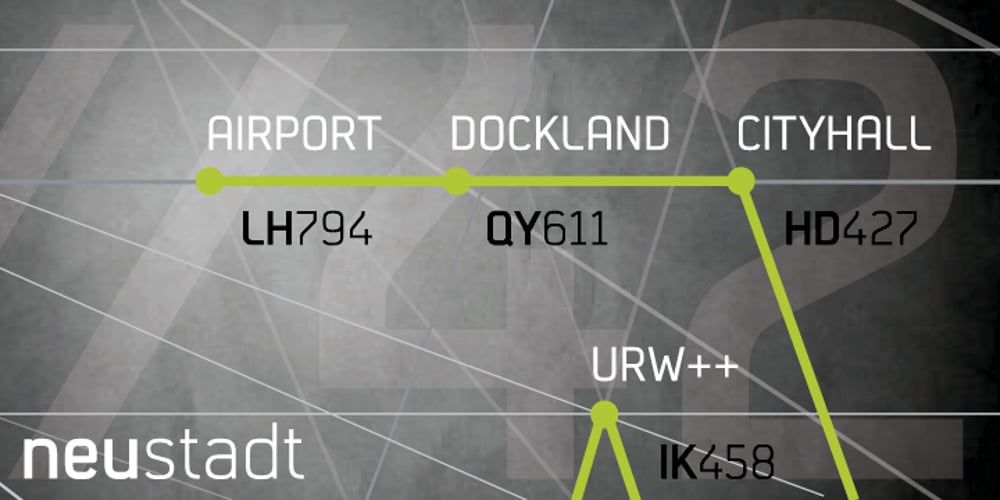
Neustadt Font Family was designed by Jörn Oelsner and published by URW Type Foundry. Neustadt contains 3 styles and family package options. The Neustadt font family was originally designed as a corporate font for Sport 2000, one of the leading buying groups in the European Sport Retail Industry. After it has been successfully established, it is now available in a revised version for the general market. The Neustadt family is highly legible both in print and on screen. As part of the URW++ SelecType collection, Neustadt meets very high quality standards and is available in over 30 European languages. The characters have smooth curved spines and little contrast combined with a big x-height. The form is very functional and has no unnecessary details. These characteristics make Neustadt perfectly usable for many type applications like sign posting, headlines, texts and also for branding.